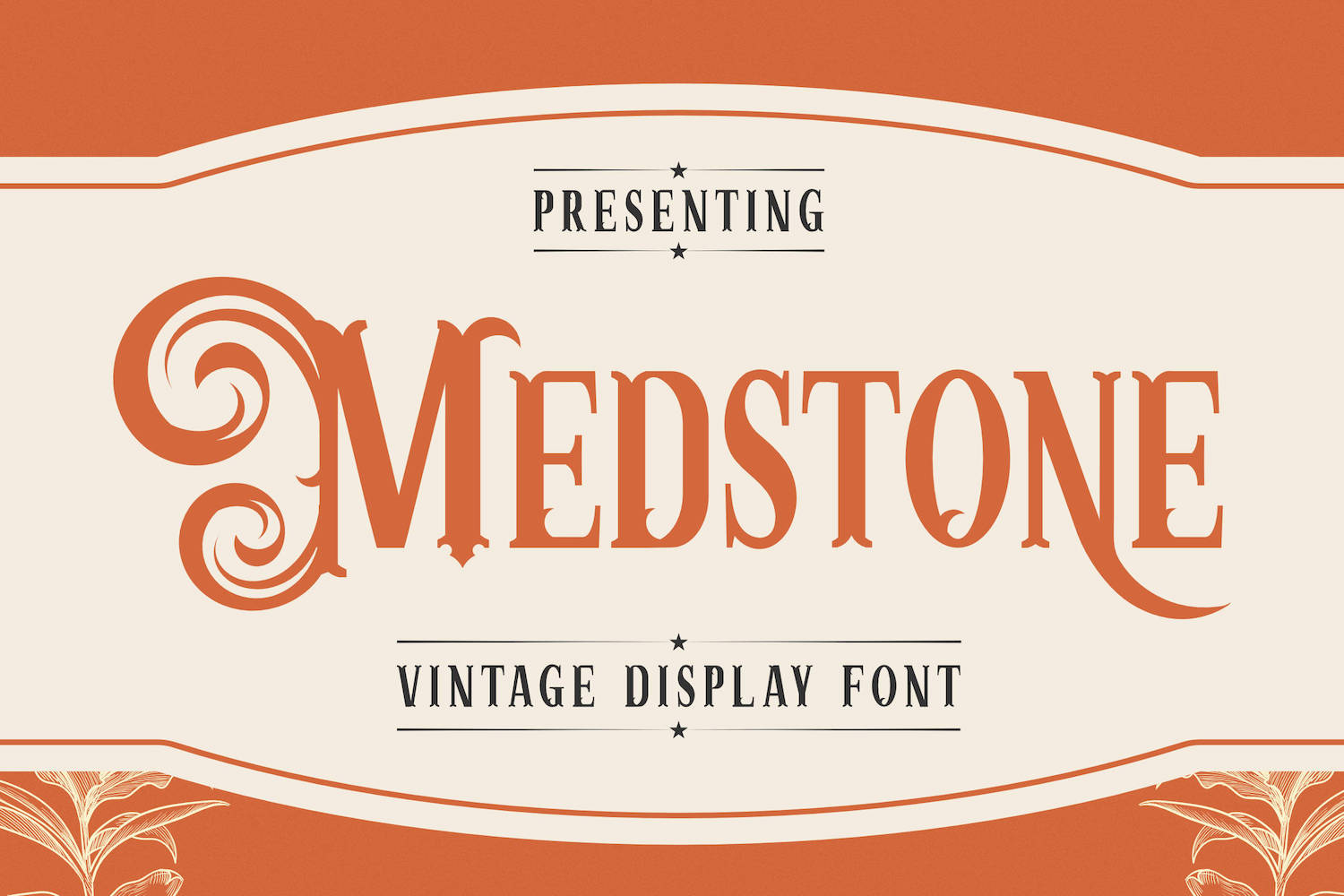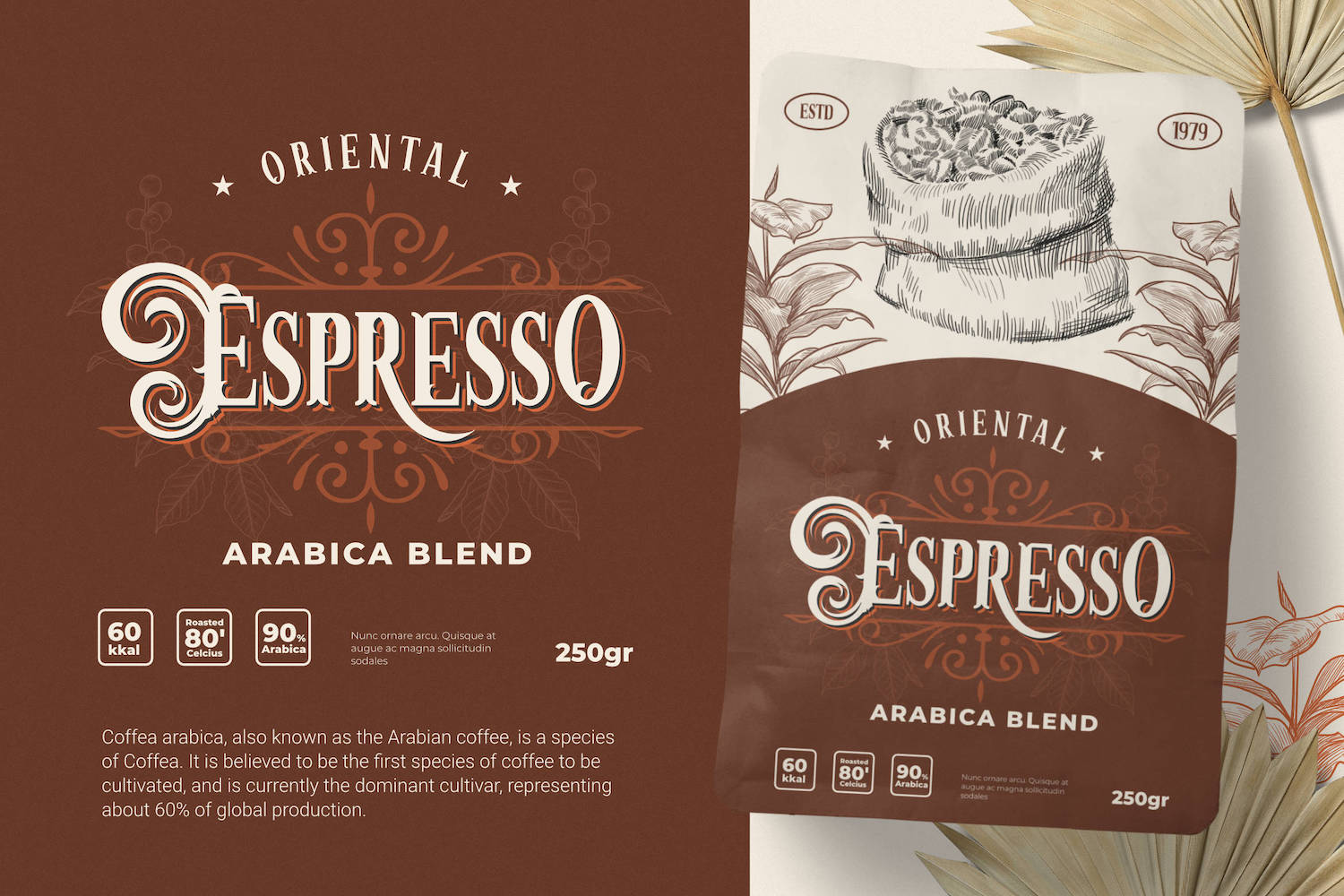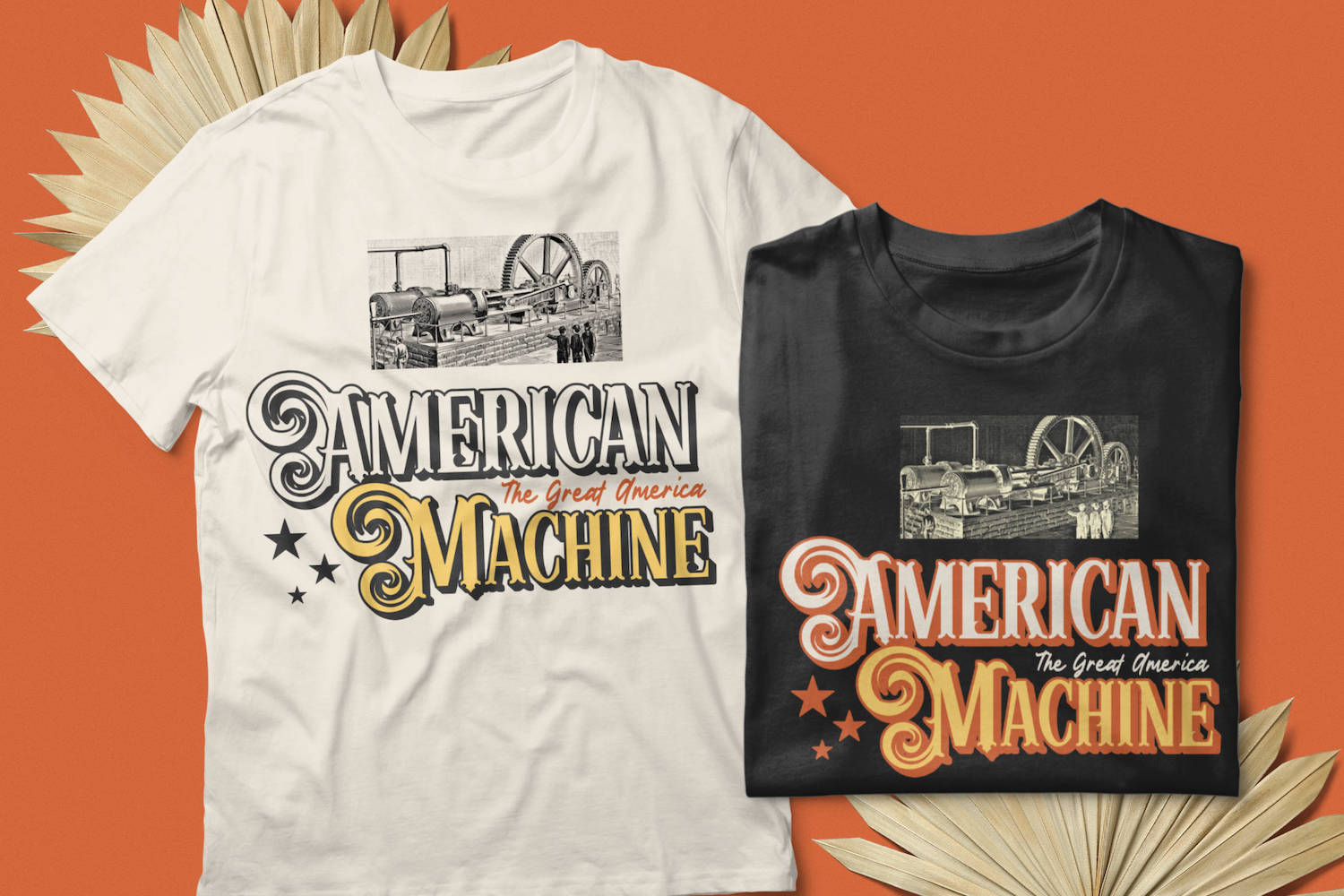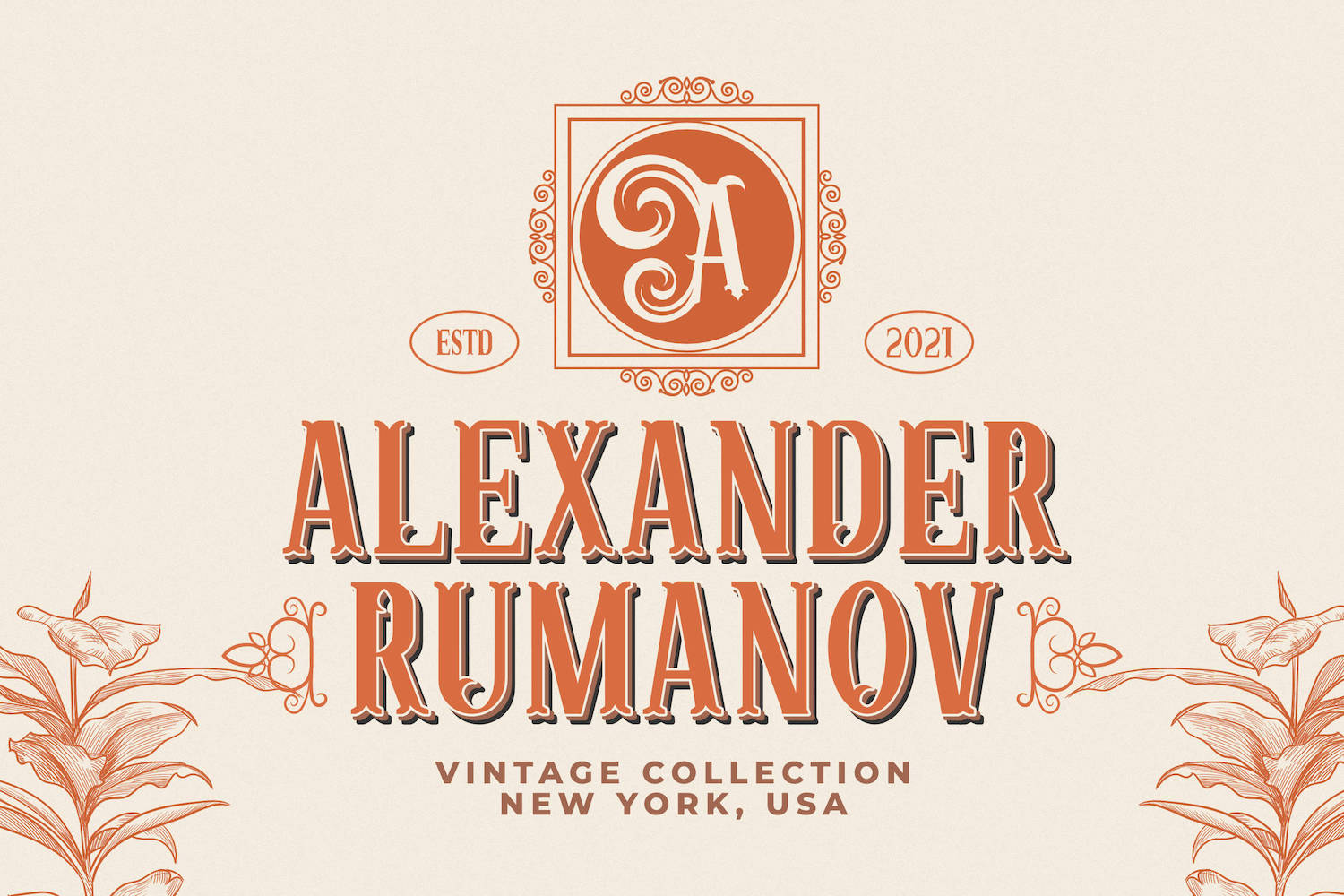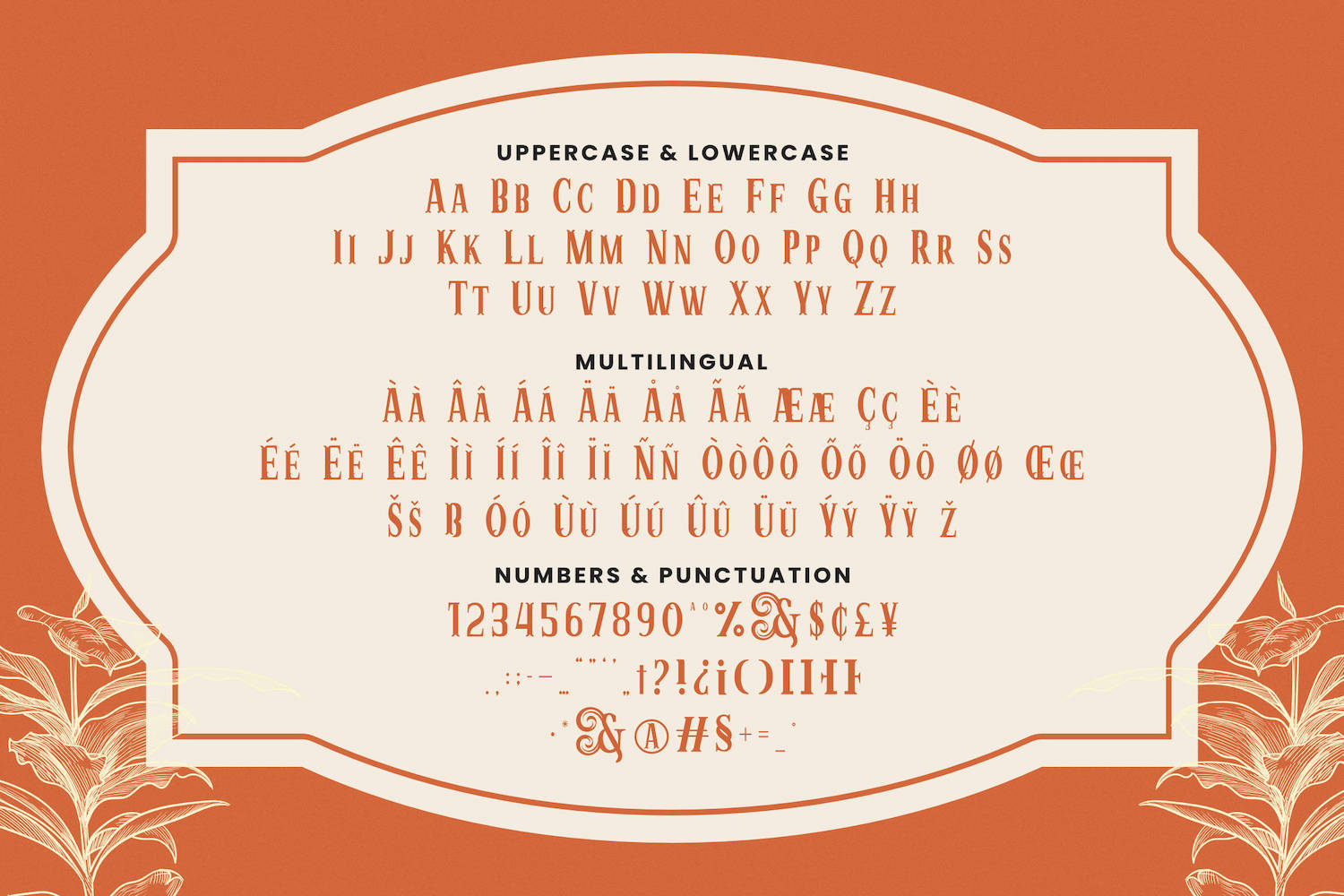
Medstone is a bold vintage display font that blends classic serif structure with ornamental swashes and dramatic curves. Inspired by antique packaging, old signage, and retro advertising, this typeface delivers a sense of heritage and elegance with a modern edge. The high-contrast strokes and decorative alternates make it ideal for branding, packaging, headlines, and merchandise that demand a nostalgic yet premium look.
The font includes uppercase and lowercase characters, multilingual support, and a wide range of punctuation and numerals. Its ornate style makes it especially suitable for designs that aim to stand out, such as vintage coffee labels, boutique logos, apparel prints, and retro-themed designs. Medstone captures the spirit of tradition and craftsmanship in every glyph.